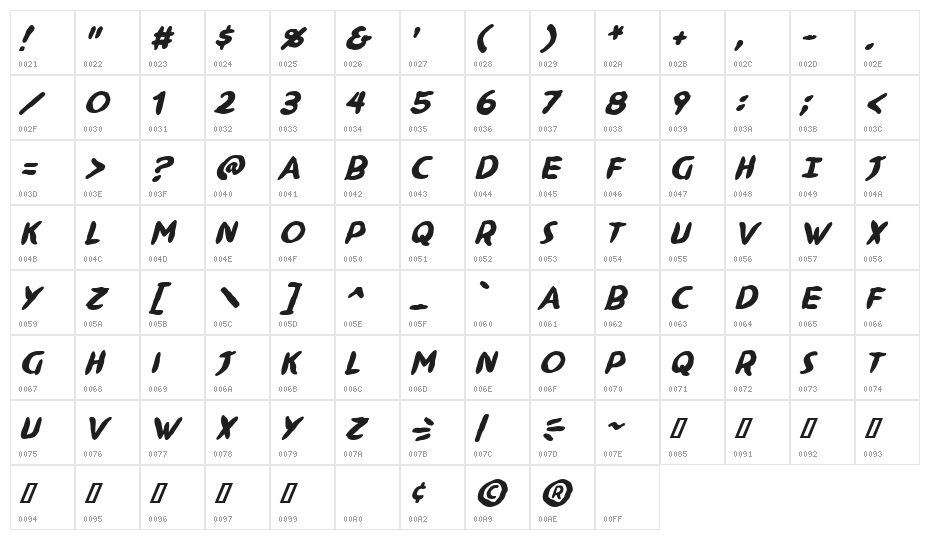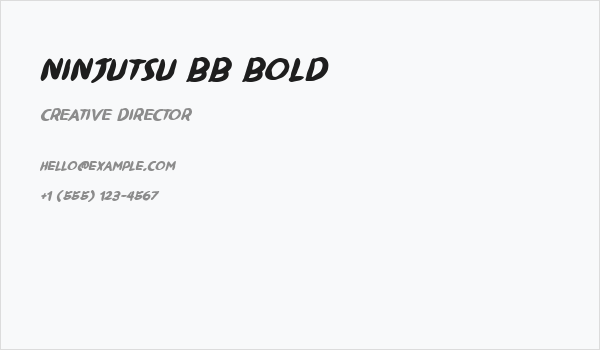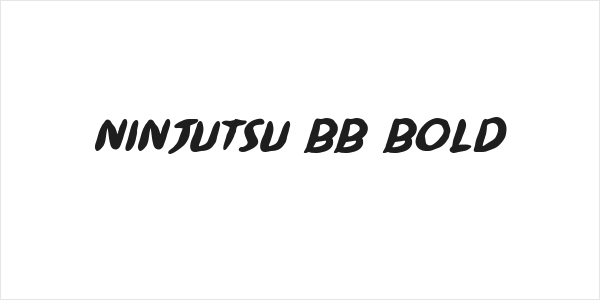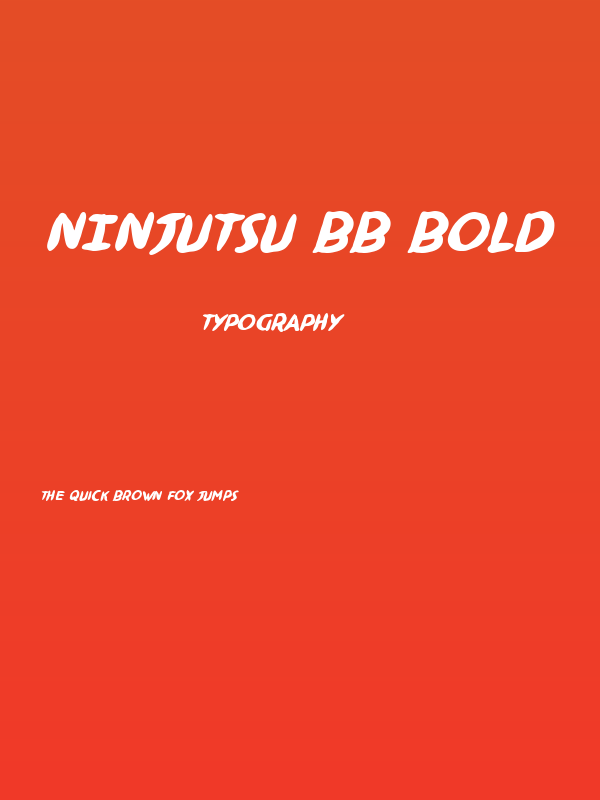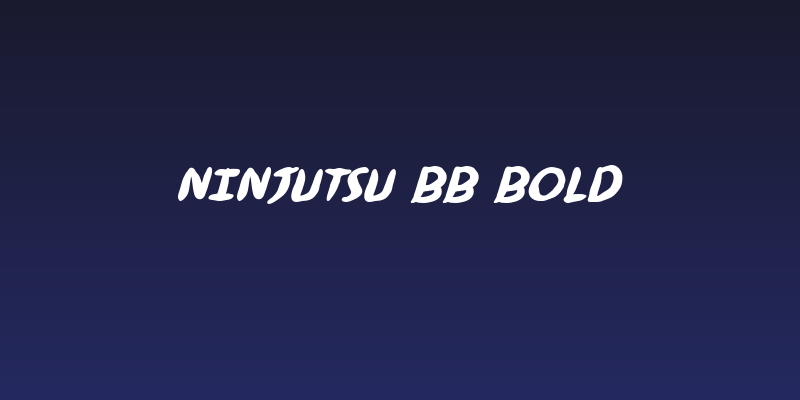
Ninjutsu BB Bold Font
Ninjutsu BB Bold Description
This bold and dynamic font features a brush-like appearance with a strong, energetic flow. The characters are slightly slanted, giving a sense of movement and urgency. The strokes are thick and consistent, creating a bold presence on the page. The uppercase and lowercase letters maintain a cohesive style, with rounded edges and a playful yet assertive demeanor. The numbers and special characters follow the same design principles, ensuring uniformity across all elements. This font is ideal for projects that require a lively and impactful visual statement.
| Proposed Projects | Ideal for posters, logos, branding, and any design needing a bold, energetic touch. |